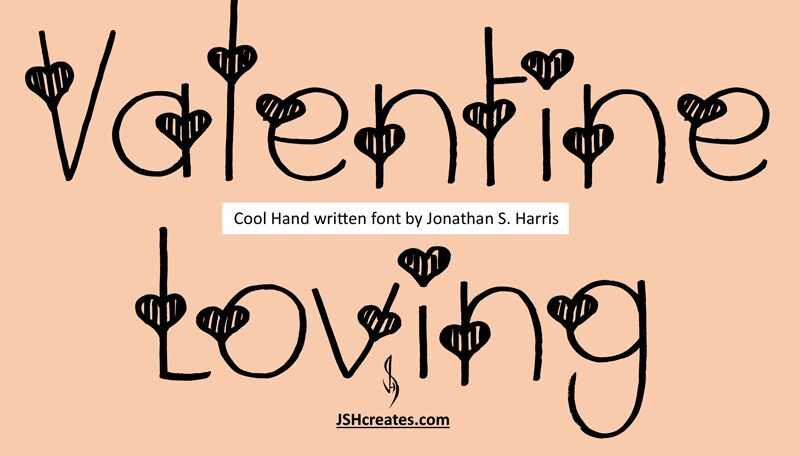
Valentine Loving
Valentine Loving by Jonathan S Harris is a light font featuring valentine hearts. Perfect for romantic projects such as wedding invitations, love letters and Valentine's Day cards.